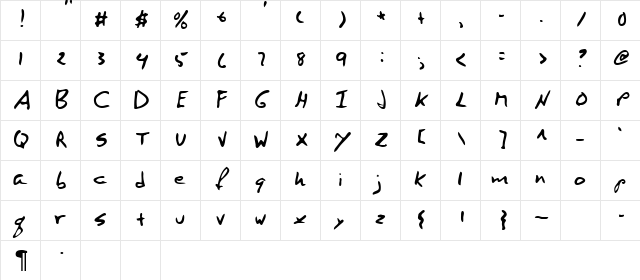
Hinto Regular
Design Context for Hinto
Hinto is a composed and adaptable typeface that performs quietly and consistently across a wide range of design contexts.